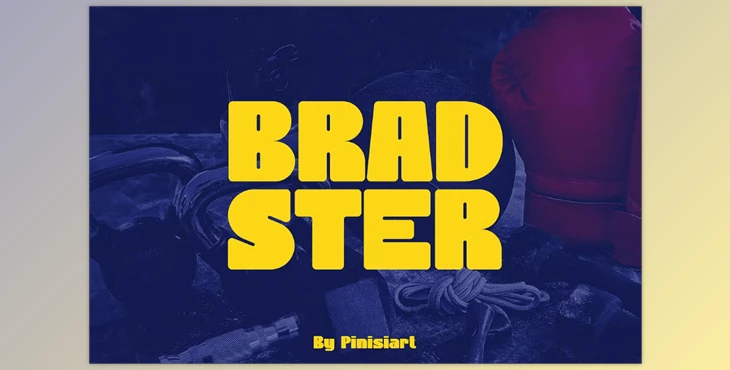
BRADSTER is a bold, dynamic typeface designed to capture athletic energy and modern style. Featuring blocky letters with rounded corners, it offers a sturdy and eye-catching structure. The vibrant yellow and blue color scheme enhances visibility, making it ideal for projects requiring a striking visual impact. With a youthful and sporty feel, BRADSTER balances boldness with a friendly, approachable touch, making it versatile for both playful and serious designs. Its connection to strength and fitness is reinforced by background imagery like kettlebells and boxing gloves, making it perfect for sports, endurance, and active lifestyle projects.